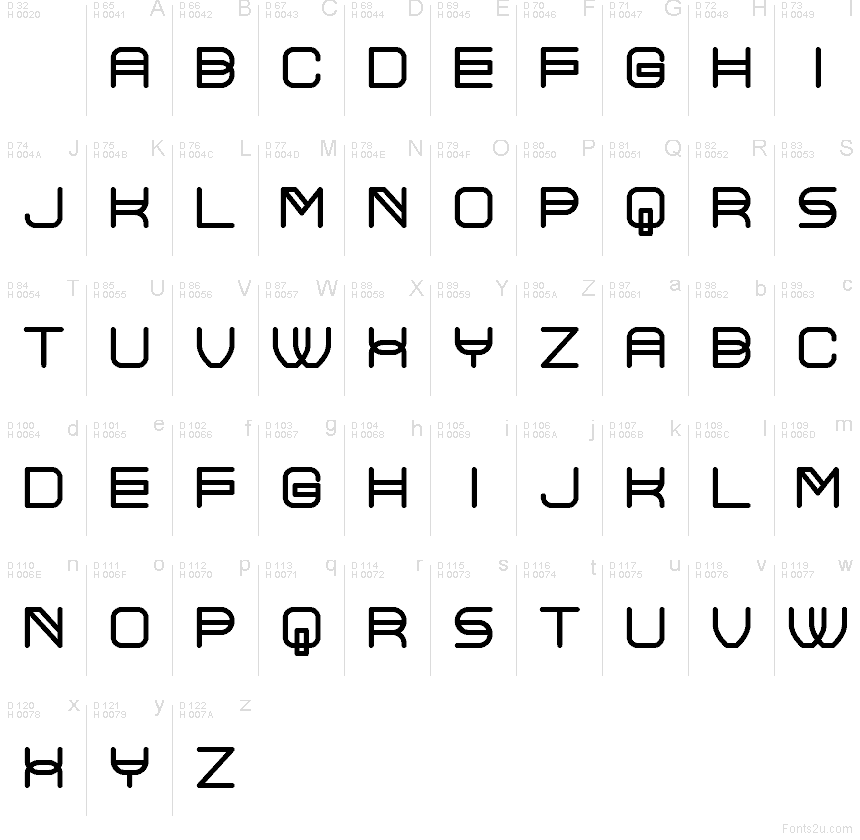
Origin Extravagant Regular
Origin Extravagant font by Vladimir Nikolic is a free futuristic display typeface that turns every word into a neon circuit. With its rounded rectangles, split strokes, and maze-like corners, this Origin family style looks like it was traced in light tubing rather than ink. The letters are wide, confident, and sharply engineered, giving text a sleek, sci‑fi rhythm that feels both retro-computer and freshly digital.
Using Origin Extravagant, headlines instantly read as techy, experimental, and a bit otherworldly. This free font shines on gaming logos, sci‑fi posters, electronic music covers, tech event branding, packaging, and bold UI headers. Pair it with a simple geometric sans at smaller sizes to keep everything legible while letting Origin Extravagant handle the high-impact moments.